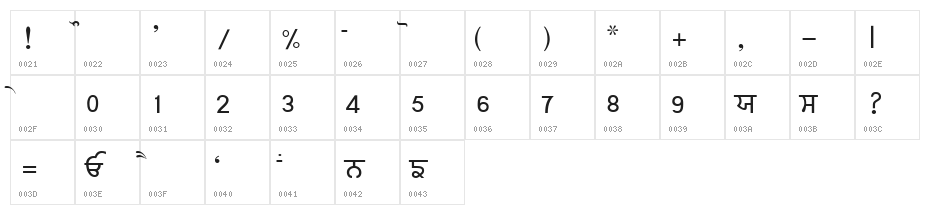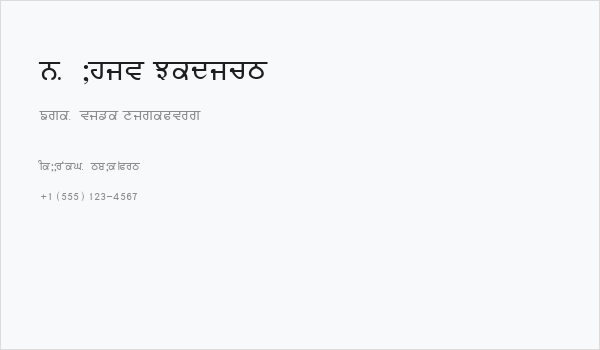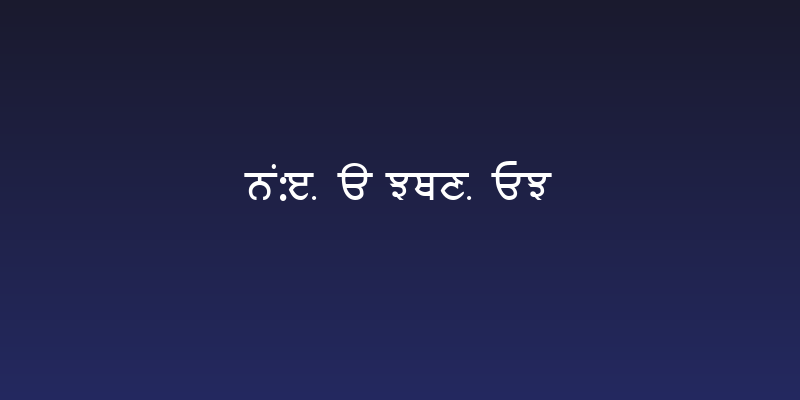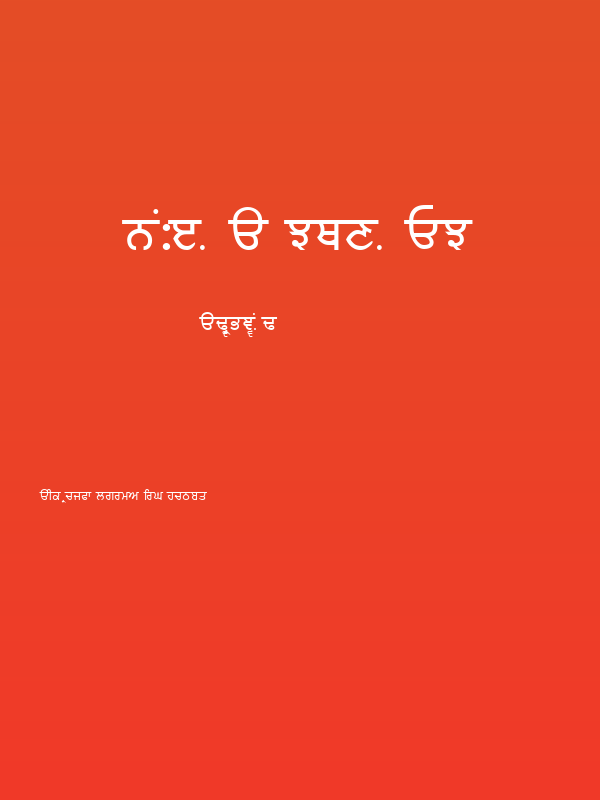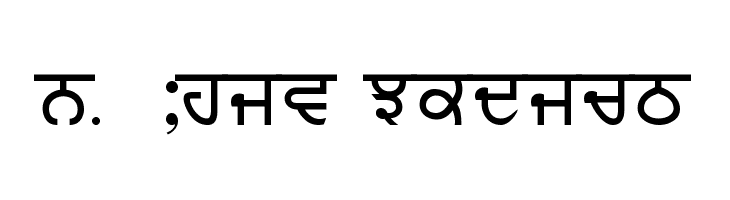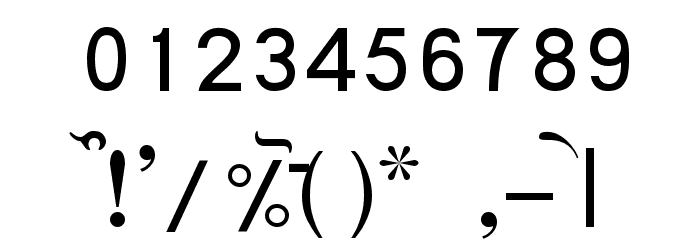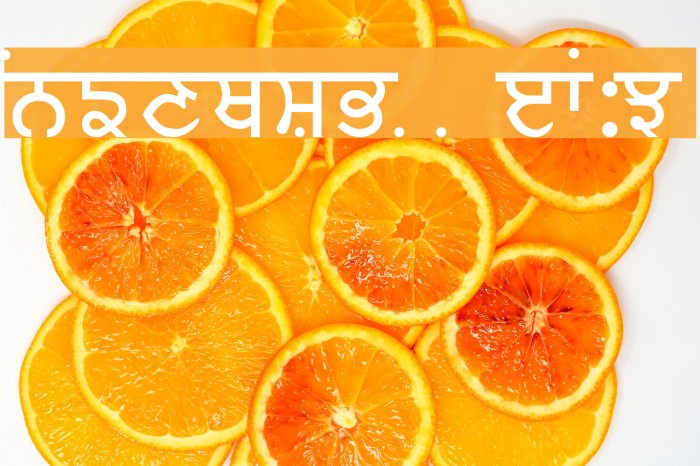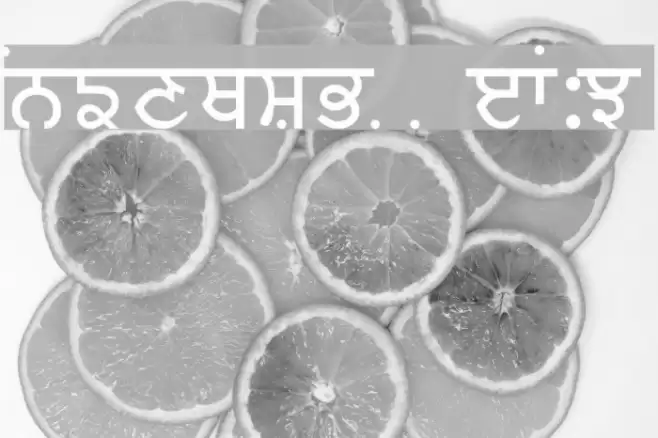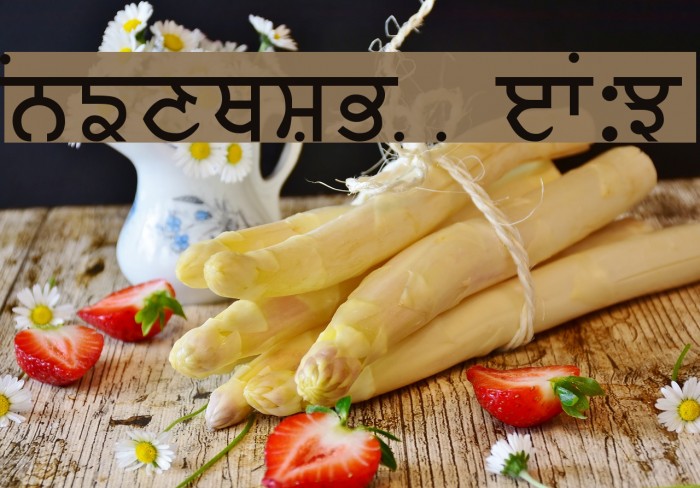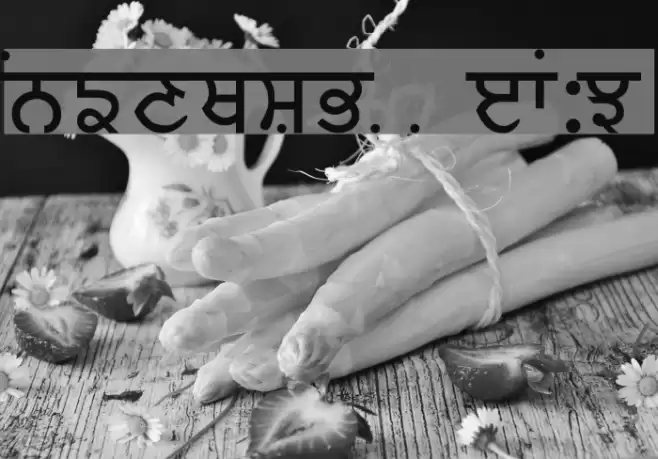
Baljit Medium Font
| 用途 | Headlines, Body text, Digital interfaces |
| おすすめプロジェクト | Ideal for use in digital interfaces, print media, educational materials, and signage due to its clarity and modern style. |